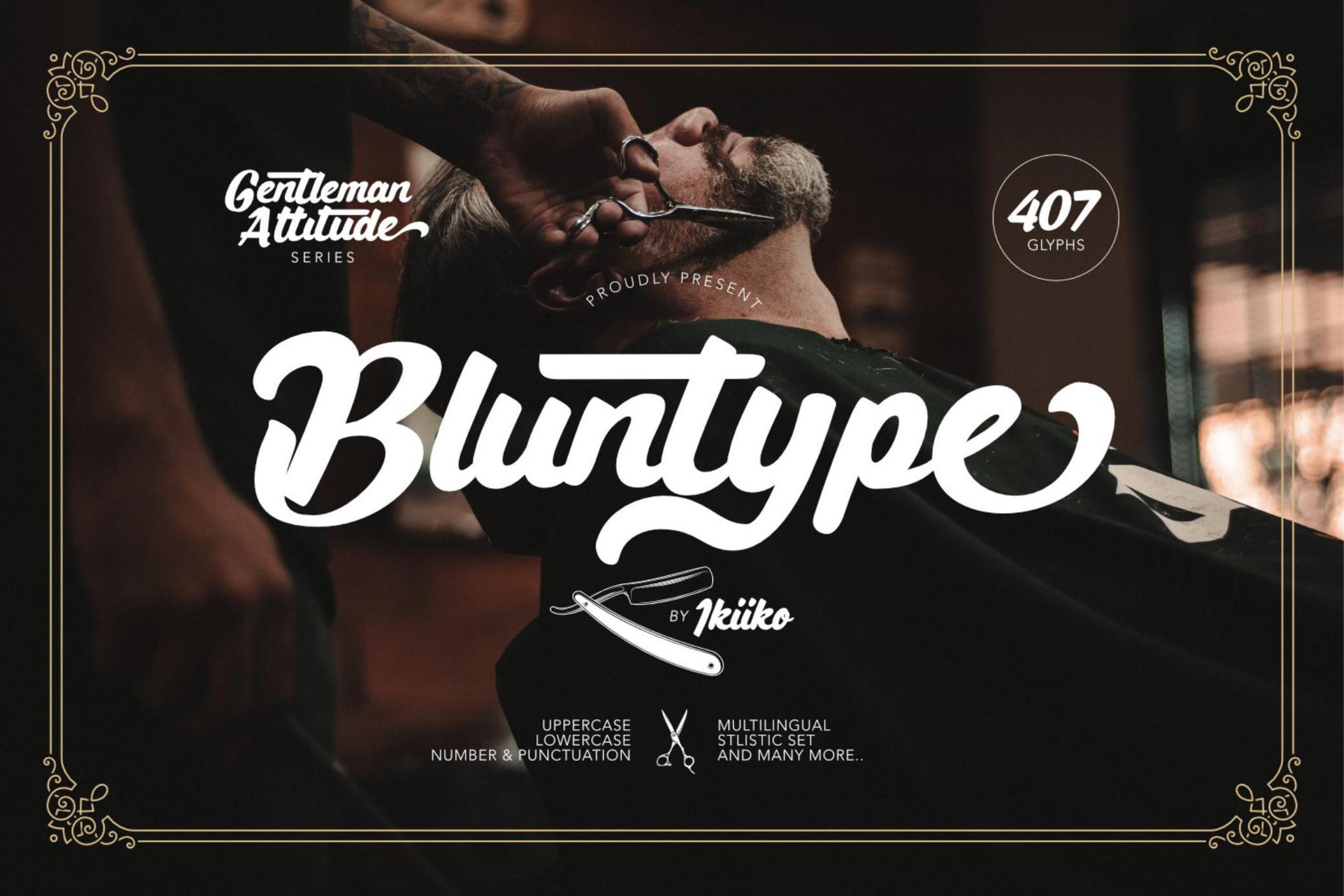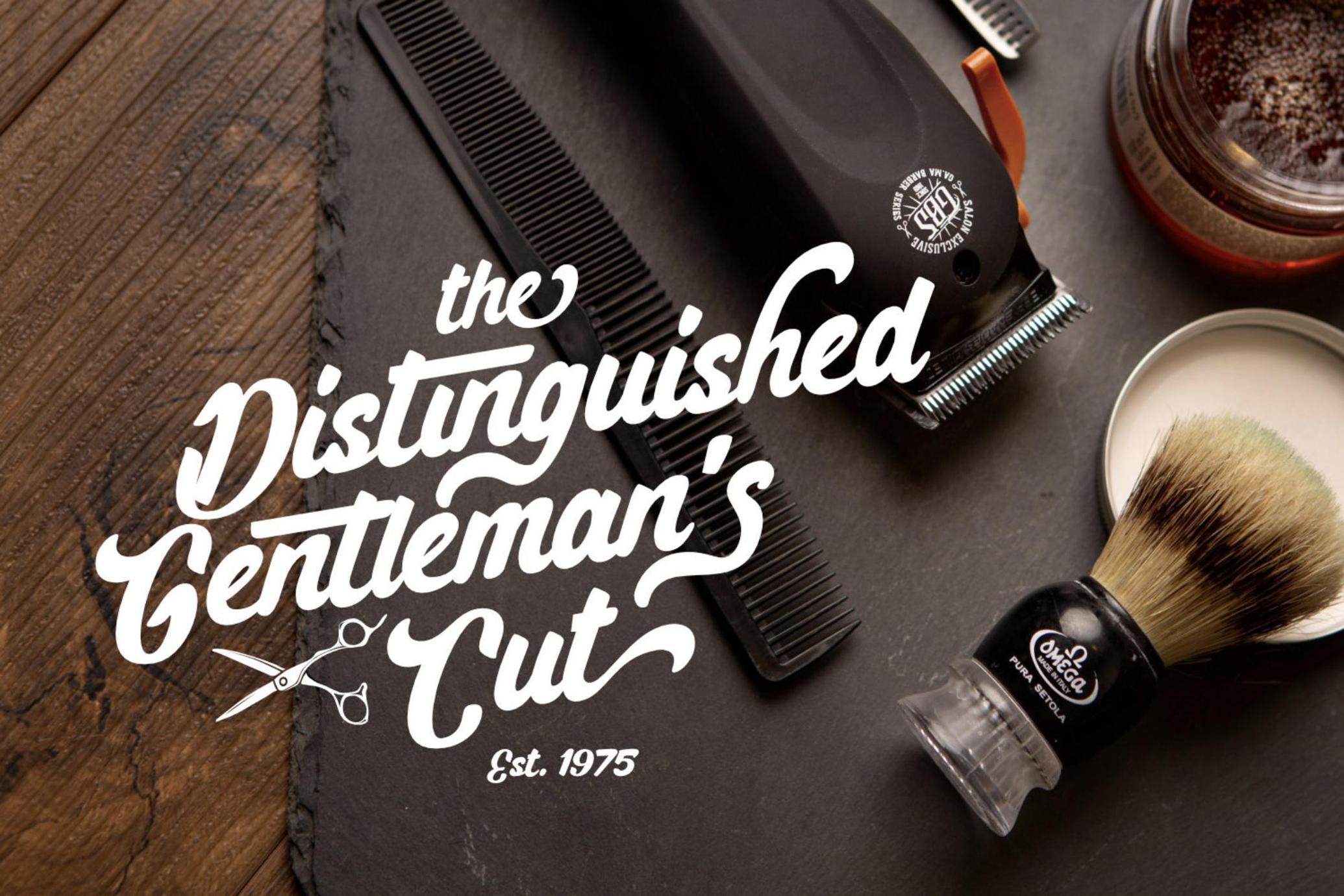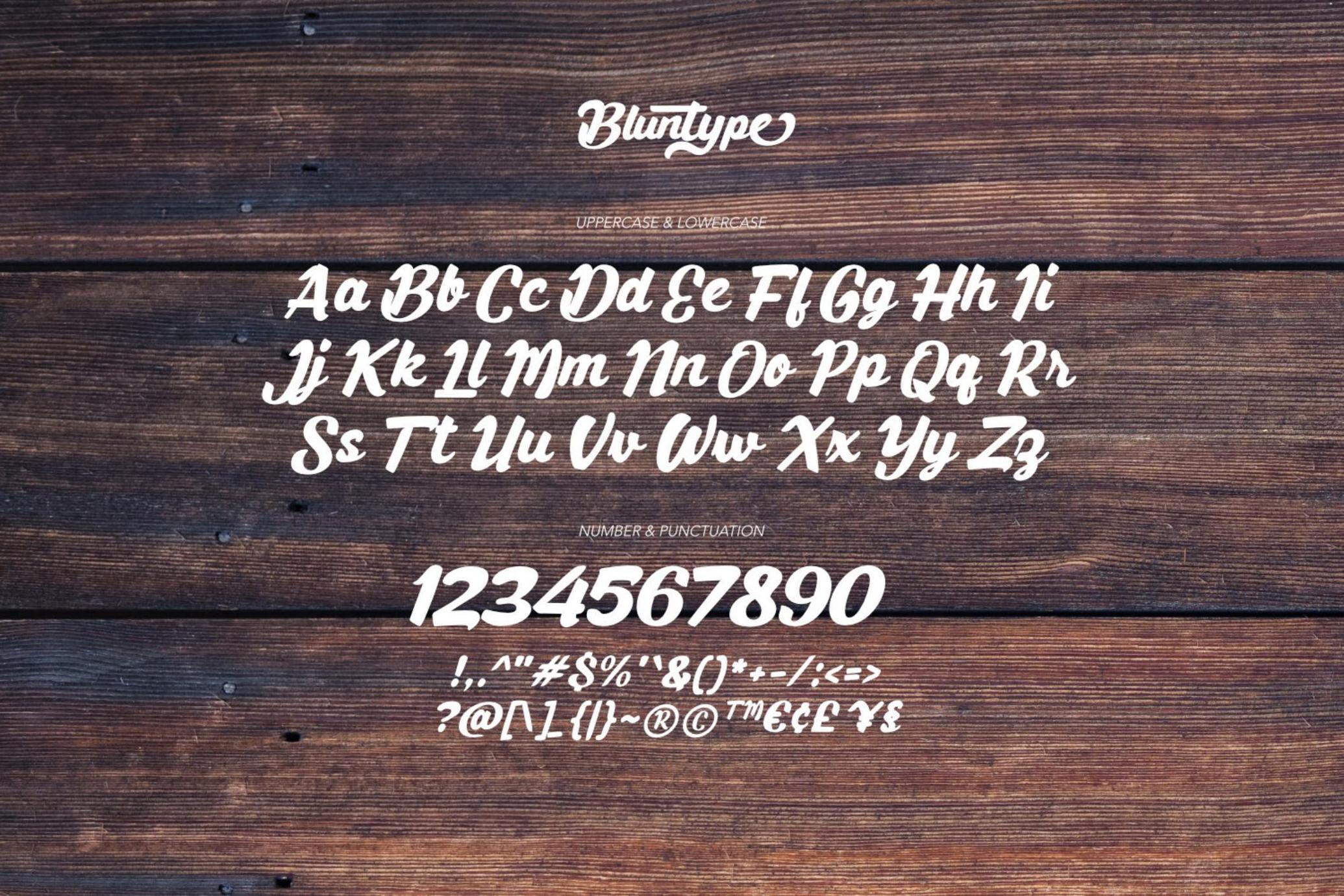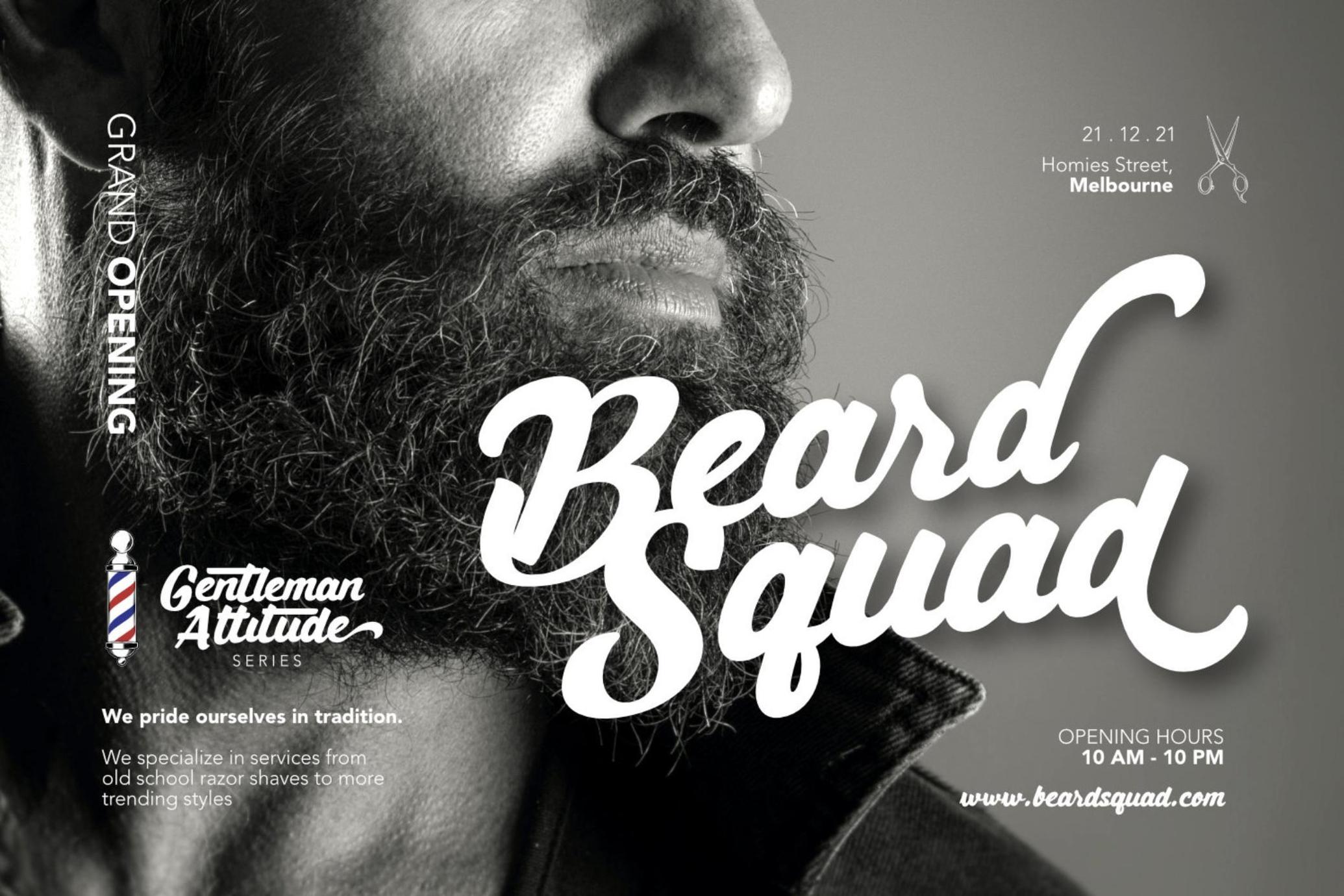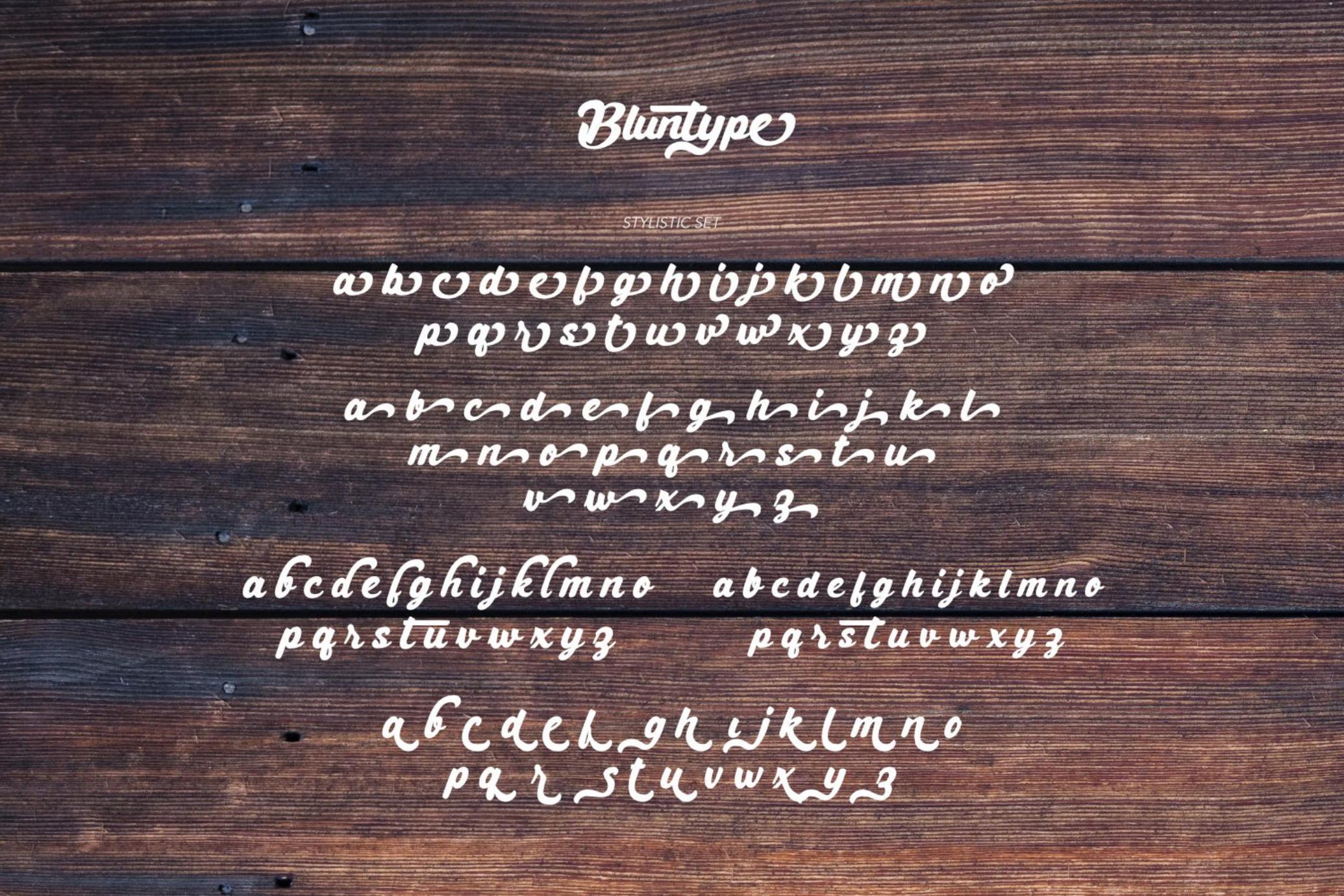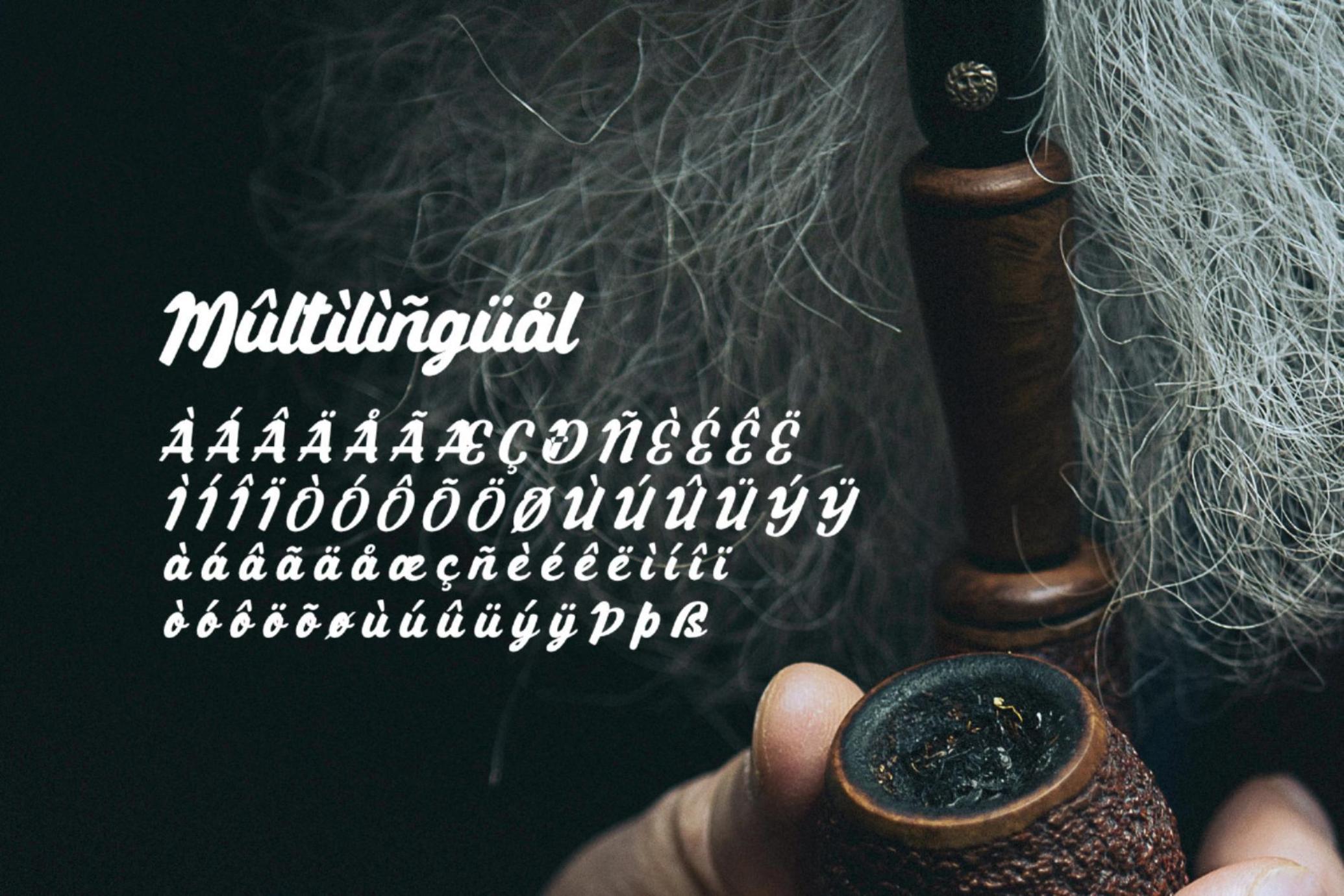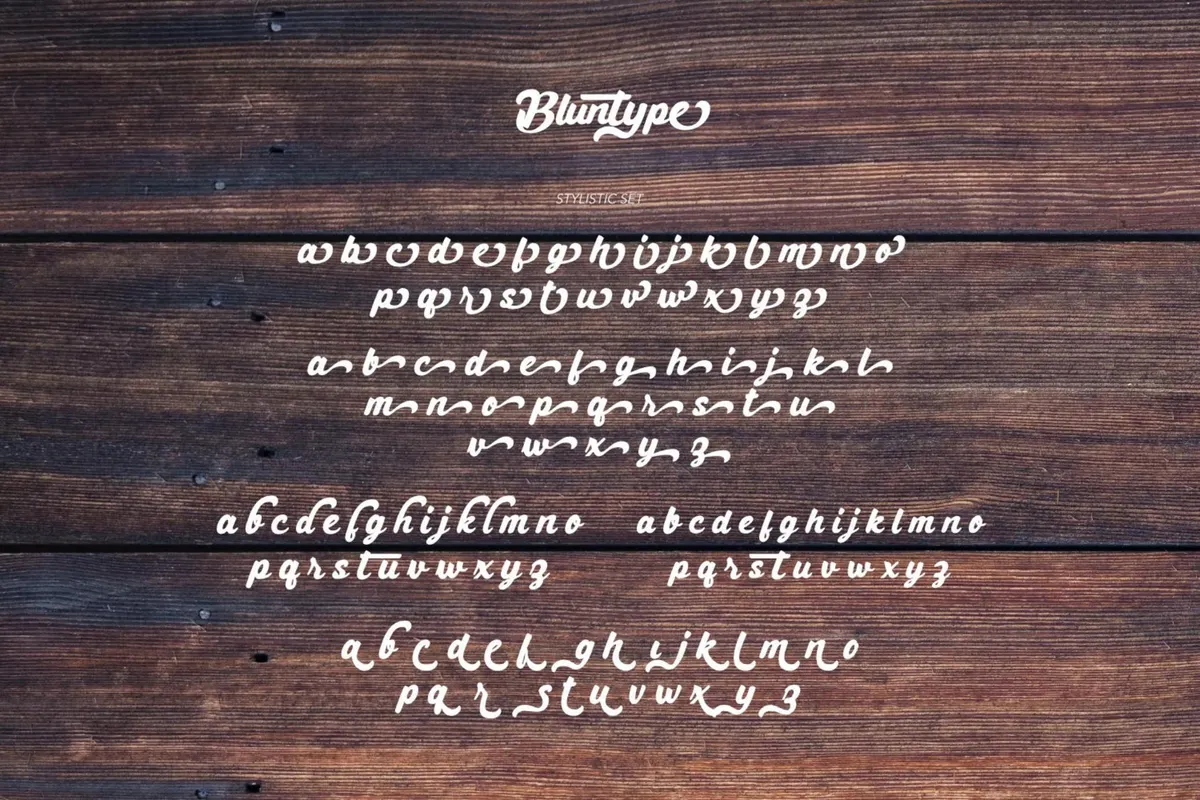
Bluntype - Barbershop Font
Bluntype
Bluntype is a brush script display font with a blunt & bold shape style. This typeface has a wide selection of alternative styles to choose from. You can play around by using various stylistic sets to form the character you want. This typeface is perfect for an logo, vintage brand, magazine layout, header & headline design, food & beverages product, packaging, poster, quotes, or simply as a stylish text overlay to any background image.
- Number & Punctuation
- Complete Stylistic Set